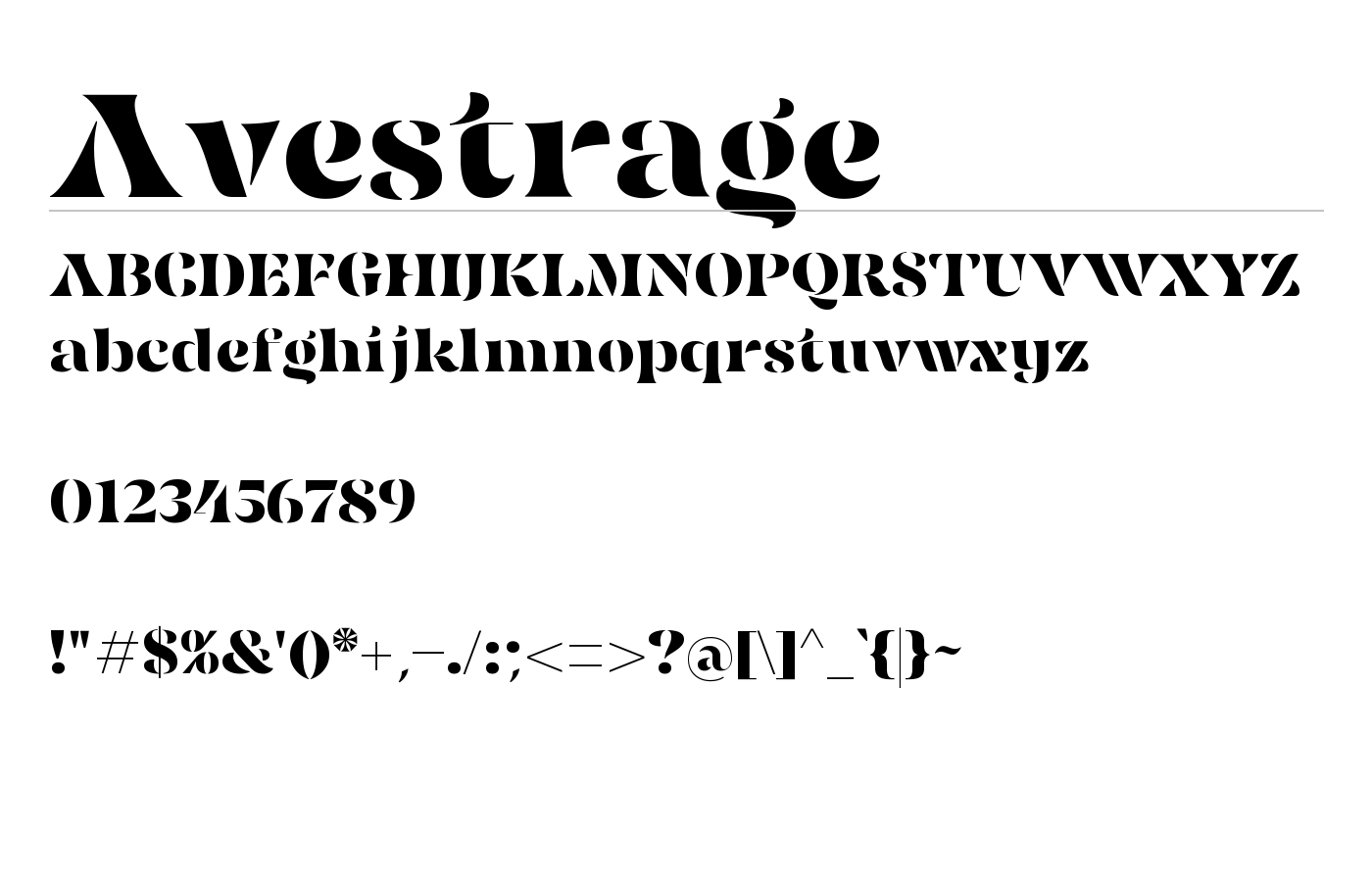
Avestrage is a bold, high-contrast serif font with a modern yet elegant flair, characterized by its sharp, geometric shapes and unique cutout details that add a distinctive, artistic touch. Its strong presence makes it ideal for eye-catching headlines, luxury branding, and editorial design where a sophisticated and contemporary style is desired. This font works best in contexts that demand bold visual impact and a stylish, memorable personality.
Avestrage Font
About Avestrage Font
| Font family | Avestrage Font |
| Designer | Mokatype Studio 2022 - Rivo Adriansyah - Abdul Malik |